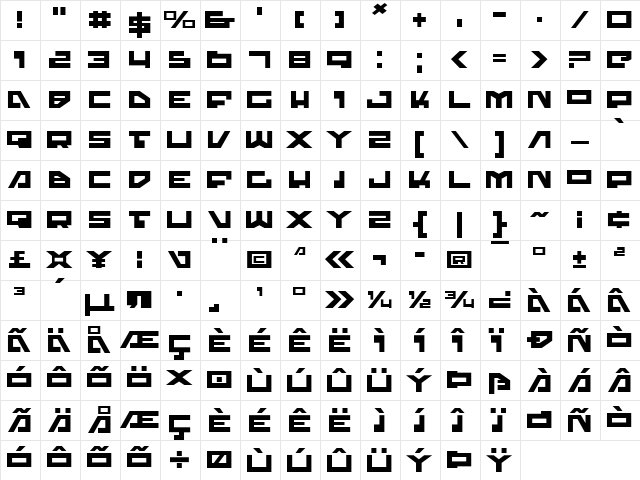
Trajia Expanded Expanded
Design Context for Trajia Expanded Typeface
Trajia Expanded is a composed and adaptable typeface that performs quietly and consistently across a wide range of design contexts.